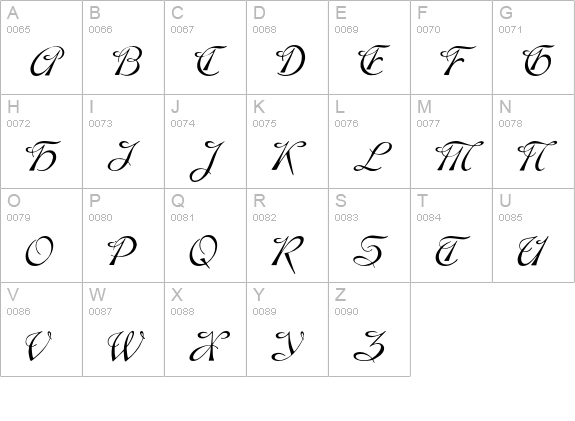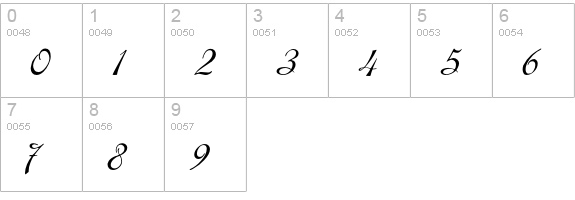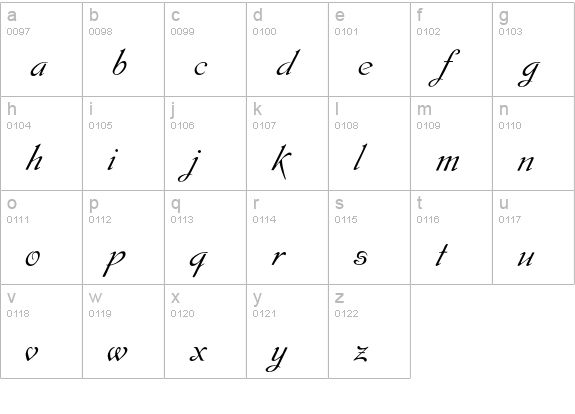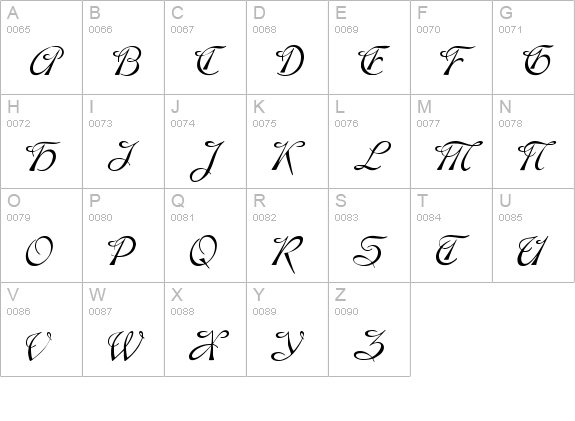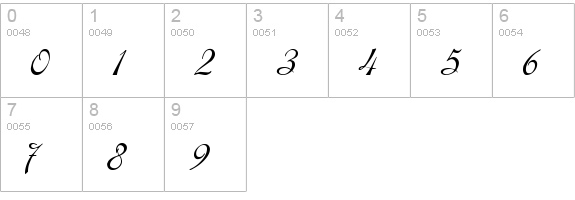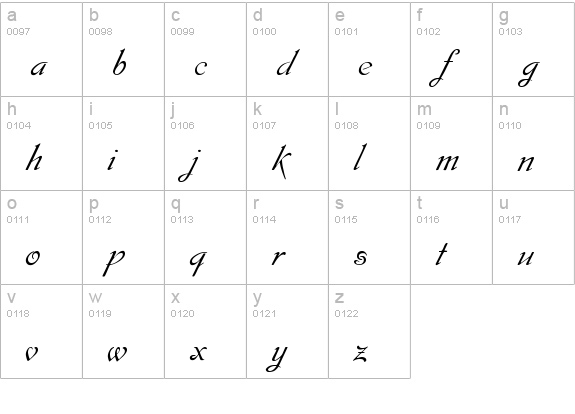
Esperanza Font Details
Esperanza font exudes elegance and sophistication with its delicate strokes and graceful curves. This timeless typeface is perfect for adding a touch of class to your designs, whether it's for invitations, branding, or editorial projects. Its versatile nature allows it to be used in a variety of contexts, from formal to modern. What makes Esperanza font even more appealing is that it is available for free download at FontsMarket.com. This means that you can easily access this stunning font and incorporate it into your creative endeavors without any cost. Whether you're a seasoned designer or a budding enthusiast, Esperanza font is sure to elevate your projects with its charm and refinement. Download it today and add a touch of sophistication to your typography collection.